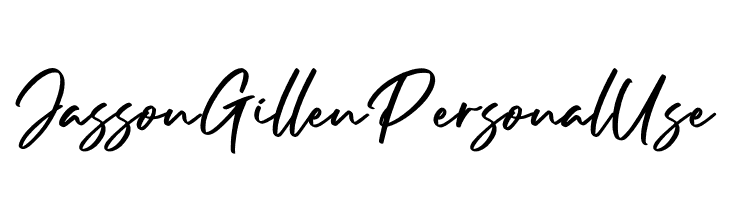
A modern, rounded font with geometric influences and consistent stroke width.
A bold, playful font with rounded edges and a retro-modern style.
A playful, handwritten font with dynamic strokes and a whimsical style.
A playful, artistic handwritten font with bold, expressive strokes.
A playful, handwritten font with a casual and dynamic style.
A playful, tall, and narrow font with a whimsical and quirky style.
A playful, hand-drawn font with irregular, whimsical letterforms.
A decorative serif font with ribbon-like embellishments for a playful look.
A playful, modern font with elongated, curved characters and minimal contrast.
A bold, playful font with a vintage flair and rounded characters.
A playful font combining solid and dotted styles for a dynamic look.
A playful, whimsical script font with interconnected, rounded letters and a handwritten aesthetic.
A decorative font with elongated, narrow letterforms and high contrast strokes.
A playful, handwritten font with dynamic strokes and a lively appearance.
A playful, rounded handwritten font with a friendly and informal style.
A bold, hand-drawn display font with an artistic and eclectic style.
A dynamic script font with fluid, interconnected letterforms and a playful aesthetic.
A bold, playful font with rounded edges and a friendly appearance.
A playful, informal handwritten font with irregular strokes.
A playful, casual handwritten font with bold strokes and a whimsical touch.
A playful, hand-drawn font with bold, rounded characters and a whimsical style.
A bold, playful font with thick strokes and a decorative style.
A playful, handwritten font with dynamic strokes and an informal style.
A whimsical, hand-drawn font with playful curls and swirls.
A whimsical, playful font with decorative swirls and a casual script style.
A dynamic and fluid handwritten font with cursive letterforms.
A playful, handwritten font with rounded, bubbly characters.